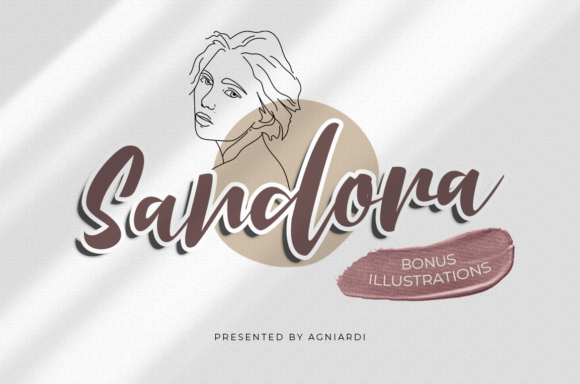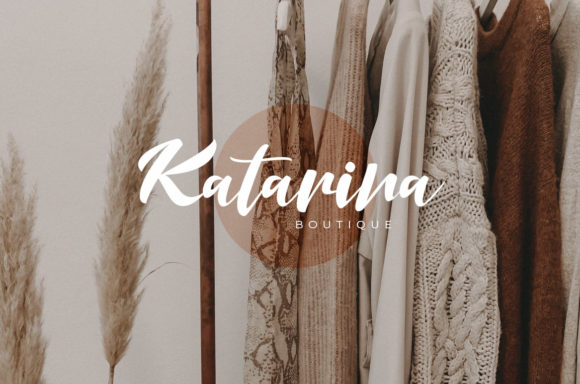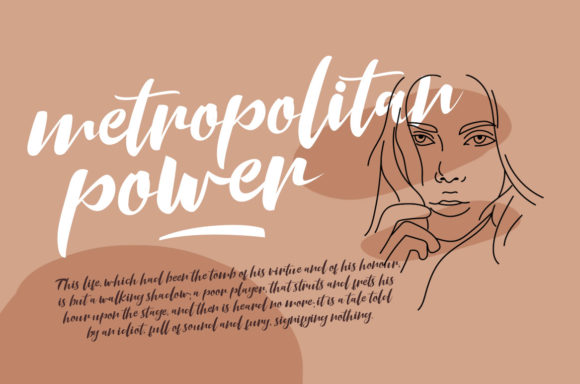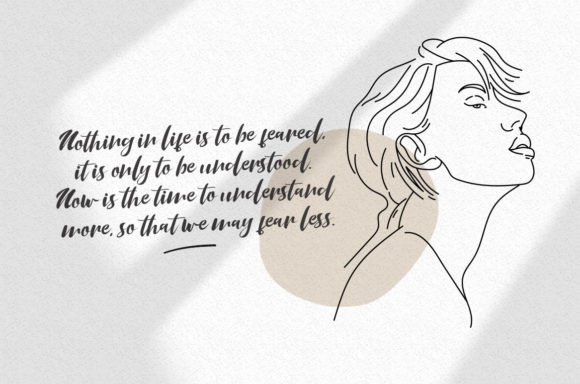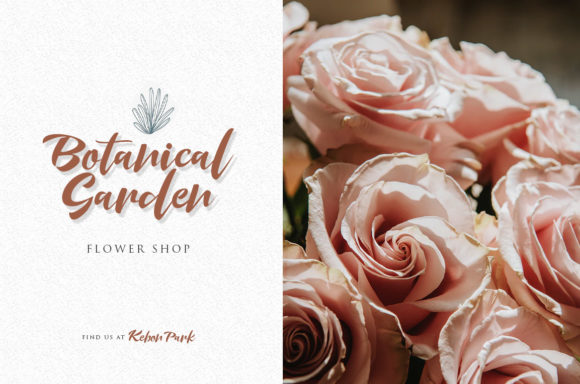
Sandora Font
About Sandora Font
Sandora is inspired by modern calligraphy and brings its own unique style to any design project. This handwritten font will look outstanding in any context, whether it’s being used on busy backgrounds or as a standalone headline!